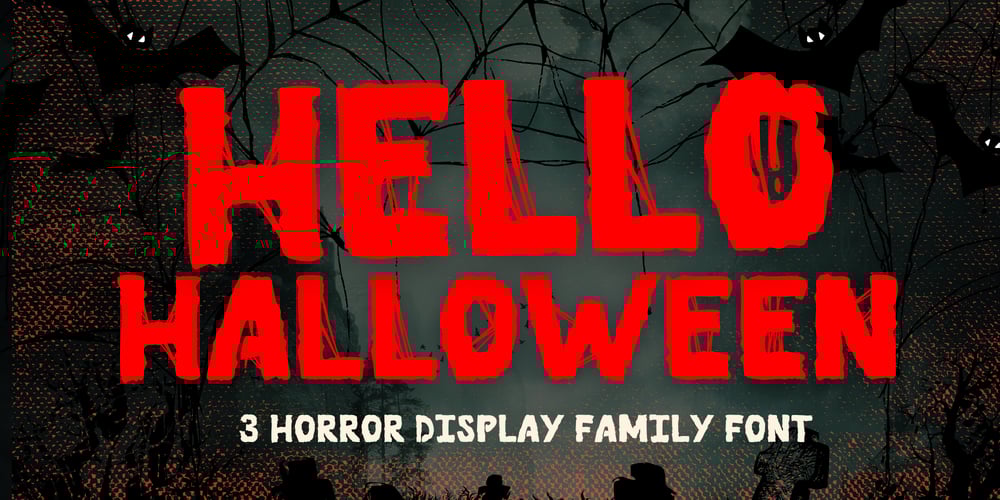
Hello Halloween Font Family was designed by Nattha​ Potchanad​ and published by Brown Cupple Typeface. Hello Halloween contains 3 styles and family package options. Hello Halloween is Halloween display family font. It embodies playfulness and authenticity and is the perfect choice for all your favorite projects such as blog posts, logos, branding, ads, invitations, greeting cards, planners, photo albums, decorations, and more. Add it to any of your designs, and enjoy the results!